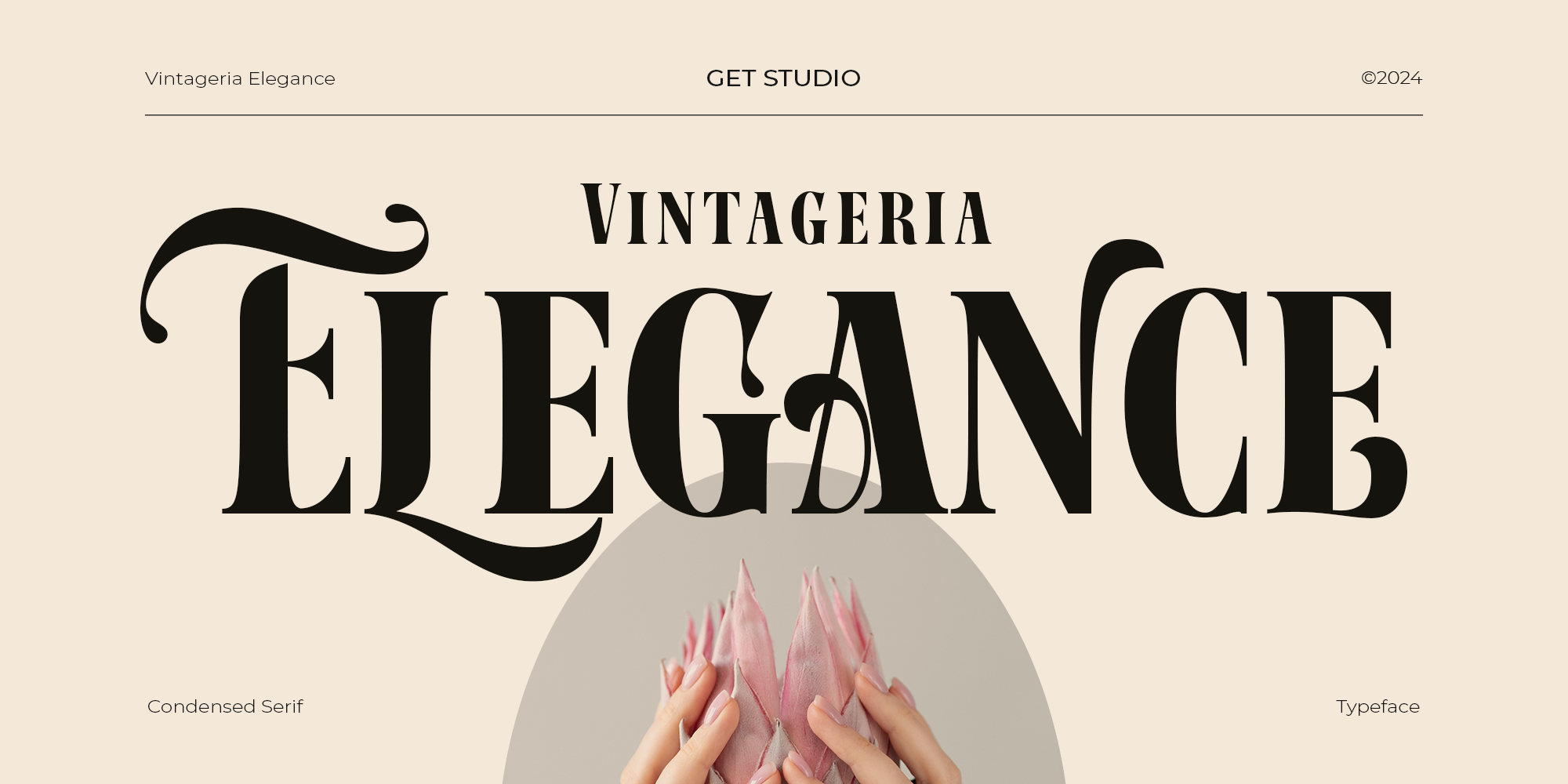
Vintageria Elegance Font is perfect for luxury vintage branding, antique shop signage, heritage hotel marketing, classic wine labels, refined wedding invitations, upscale vintage boutiques, historical society materials, elegant estate sales, premium nostalgia campaigns, and sophisticated retro advertising.
What makes Vintageria Elegance Font exciting is its exquisite combination of vintage charm and timeless sophistication that perfectly captures the refined elegance and aristocratic grace of bygone eras while maintaining contemporary luxury appeal. This typeface features ornate letterforms with classical proportions and decorative details that evoke the grandeur of vintage European design and aristocratic heritage. The font's distinguished personality and vintage luxury aesthetic make it ideal for premium brands seeking to convey heritage, exclusivity, and the timeless elegance that comes from centuries of refined taste and cultural sophistication.
Vintageria Elegance Font family includes elegant weight variations and ornamental alternatives that enhance its vintage luxury character while providing design flexibility for heritage and premium applications. The font features classical flourishes, period-specific ornaments, and aristocratic character details that create authentic vintage atmosphere for luxury and heritage branding.
Luxury heritage brands and upscale vintage retailers consistently select Vintageria Elegance Font Free Download for projects requiring sophisticated vintage appeal and aristocratic credibility. The font's refined character excels in applications targeting affluent consumers who appreciate authentic heritage craftsmanship and timeless elegance. Whether you're designing for luxury antiques, heritage hospitality, or premium vintage collections, this distinguished typeface delivers the vintage sophistication and aristocratic elegance that creates emotional connections with discerning customers seeking authentic luxury experiences rooted in historical refinement and cultural heritage.